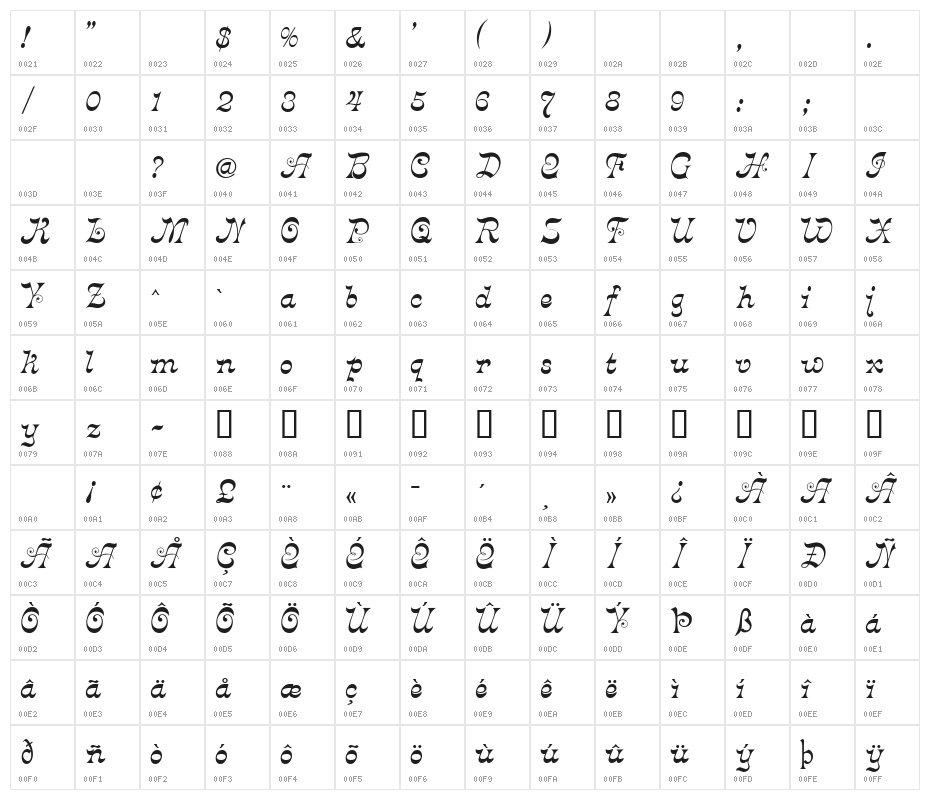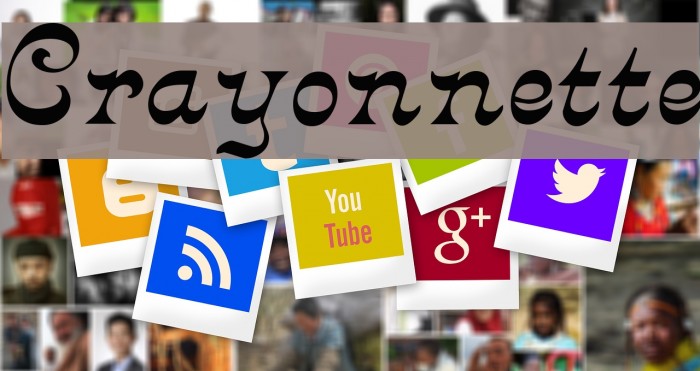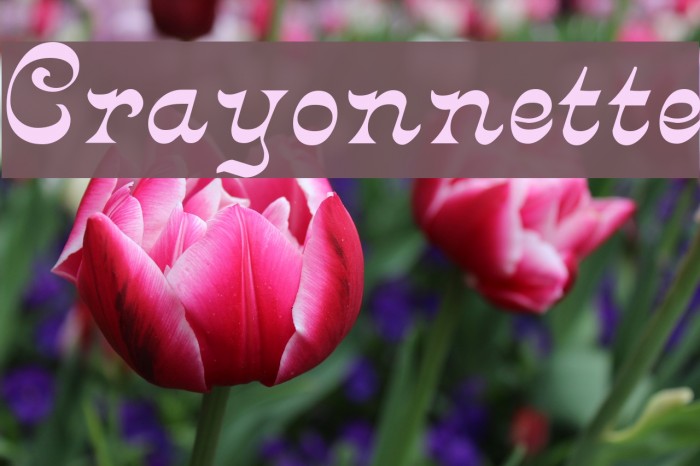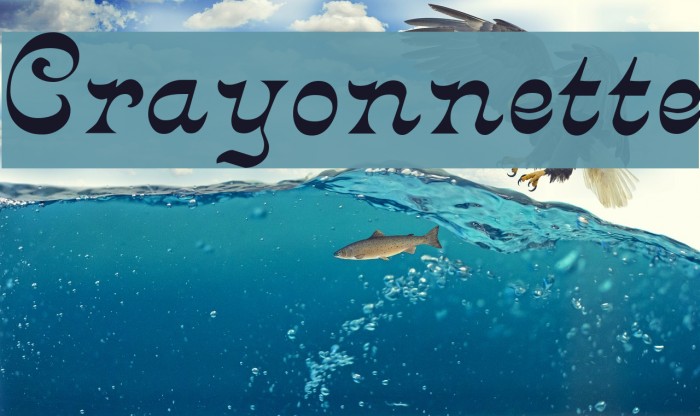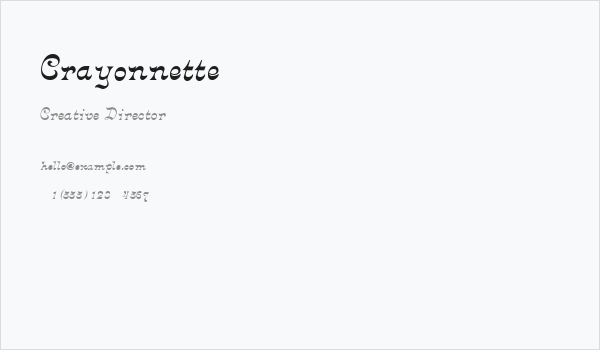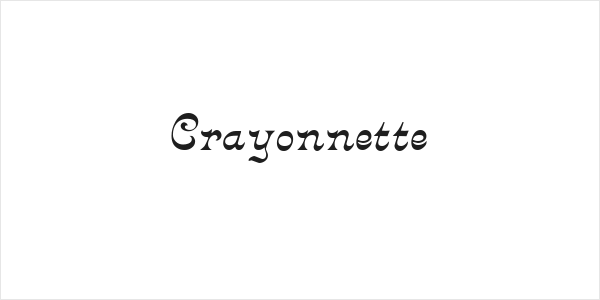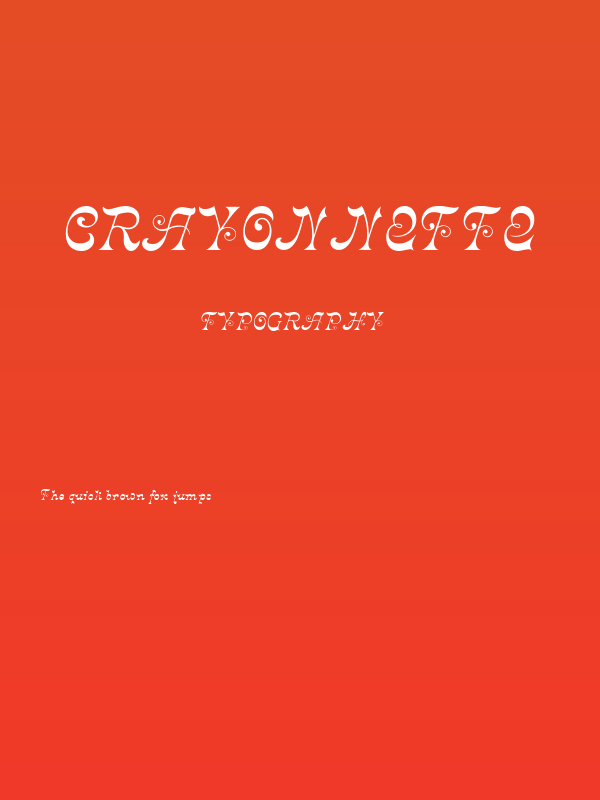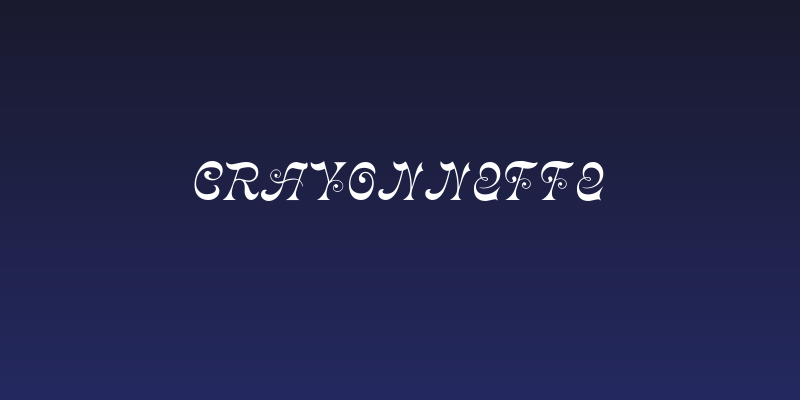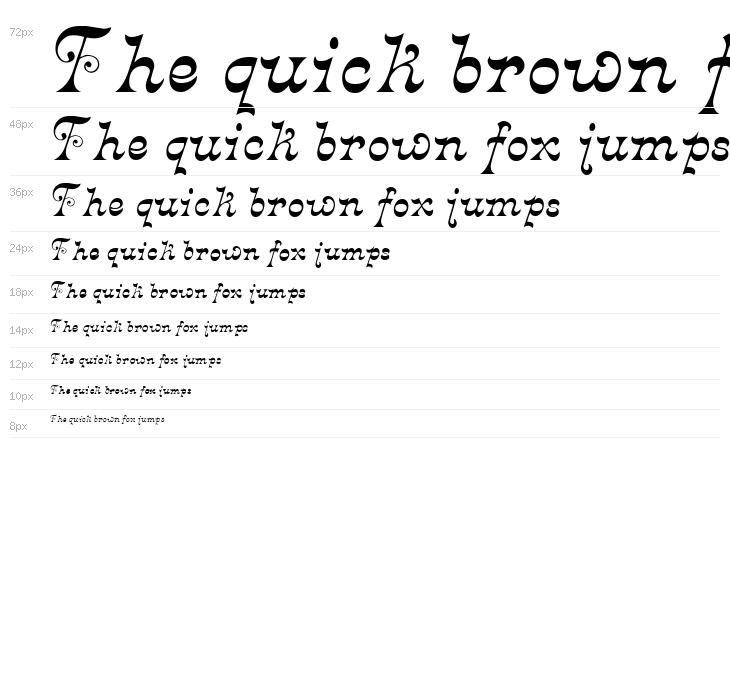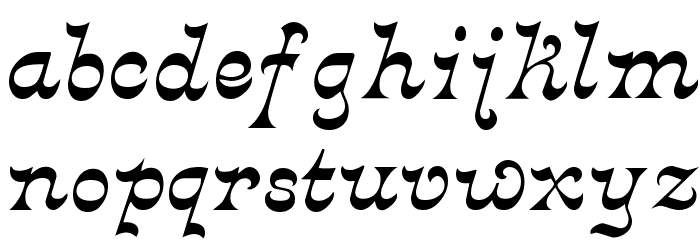
Crayonnette Font
Crayonnette Description
This font features a whimsical and decorative style, characterized by its playful curls and swirls integrated into each letterform. The uppercase letters are particularly ornate, with flourishes that add a sense of elegance and creativity. The lowercase letters maintain a consistent style, offering a harmonious blend of readability and artistic flair. Numbers and special characters follow the same decorative theme, making the font suitable for projects that require a touch of uniqueness and charm. The overall design is reminiscent of calligraphy, yet it maintains a modern twist with its bold strokes and intricate details.
| Proposed Projects | Ideal for invitations, greeting cards, branding, and decorative posters. |